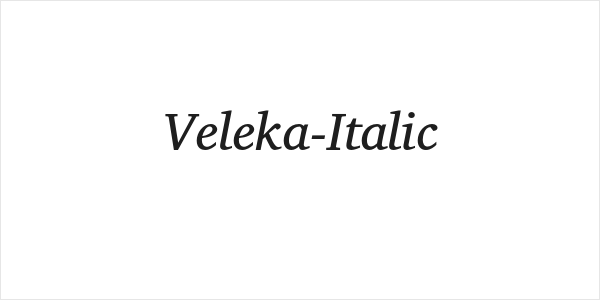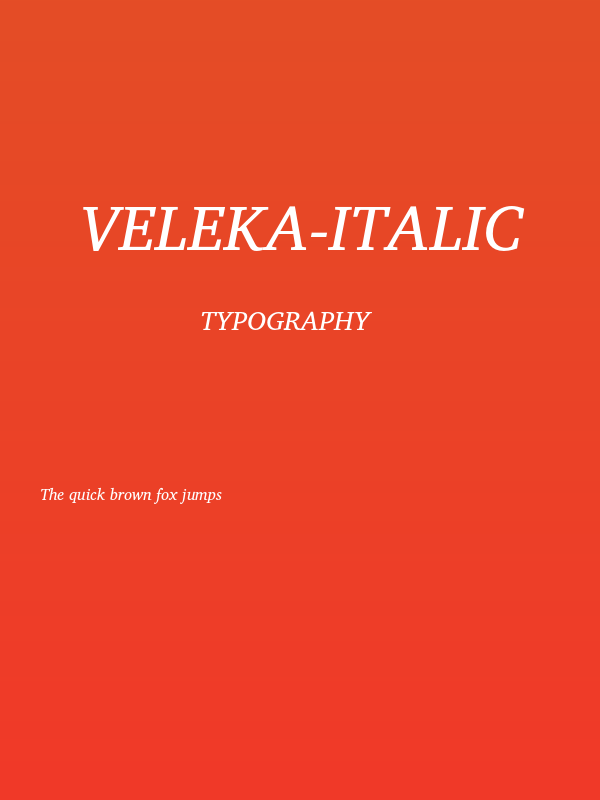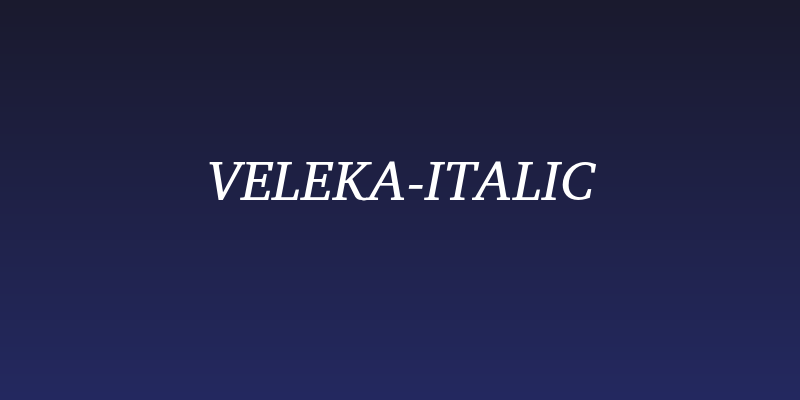
Veleka-Italic Font
Veleka-Italic Description
This font exhibits a classic and elegant italic style, characterized by its smooth, flowing curves and moderate stroke contrast. The serifs are subtle yet distinct, adding a touch of sophistication to the overall appearance. The uppercase letters are well-proportioned, maintaining a consistent height, while the lowercase letters feature a gentle slant that enhances readability. The numerals are clear and balanced, making them suitable for both text and display purposes. The special characters are thoughtfully designed, ensuring they integrate seamlessly with the rest of the typeface. This font's refined aesthetic makes it ideal for projects that require a touch of elegance and professionalism.